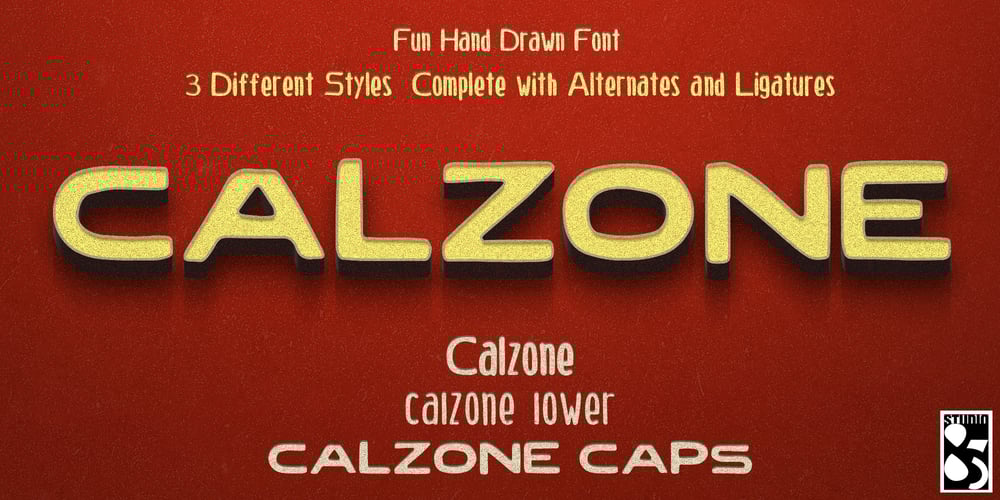
Calzone
Calzone font
Calzone Font Family was designed by John Buttino and published by Studio 85 Design. Calzone contains 3 styles and family package options. The Calzone Family is display typeface inspired by the many neighborhood pizza and local eateries with hand painted menus. The font is cozy and fun, like your favorite comfort food.All of the typefaces include standard ligatures, currencies, ampersands and footnotes consistent with the design.Calzone regular includes upper and lower case type, great for body copy. Calzone Caps is a heavy, stylized uppercase. Calzone Lower is a light, stylized lowercase. Included with Calzone Caps and Calzone Lower are a full set of alternate letters for variation to enhance your design and give it an informal feel.The Calzone Family is well suited for an informal look and feel. Alternate characters offer many opportunities to be creative with your designs. The Calzone Family is great is for menus (of course), apps, games, video, animation, packaging, child oriented design, presentations and anything fun.